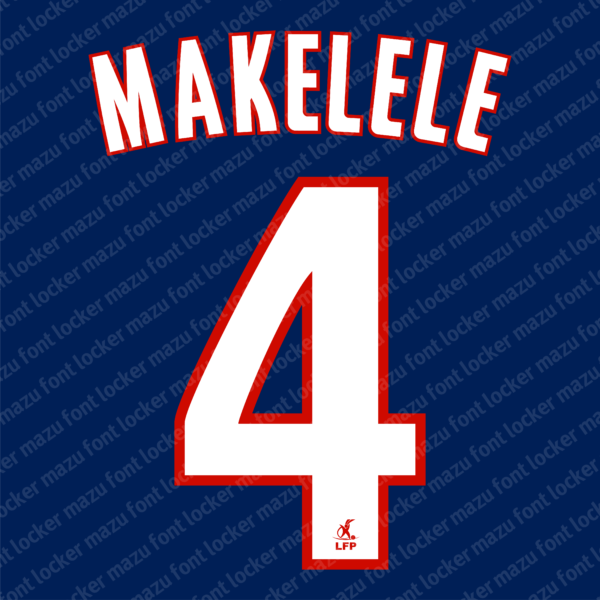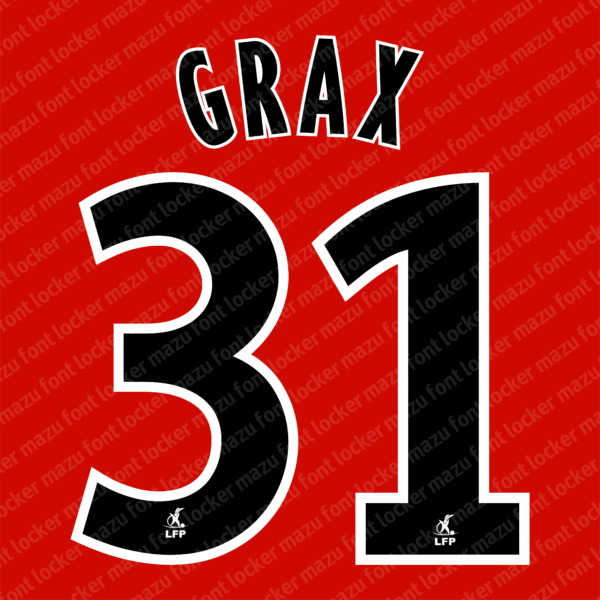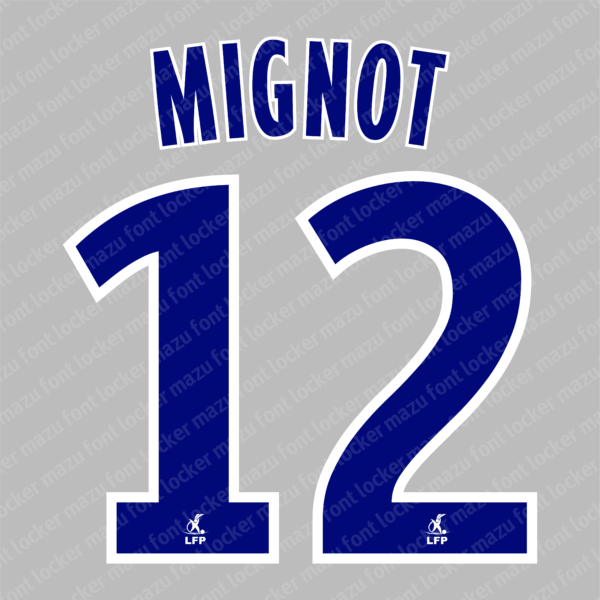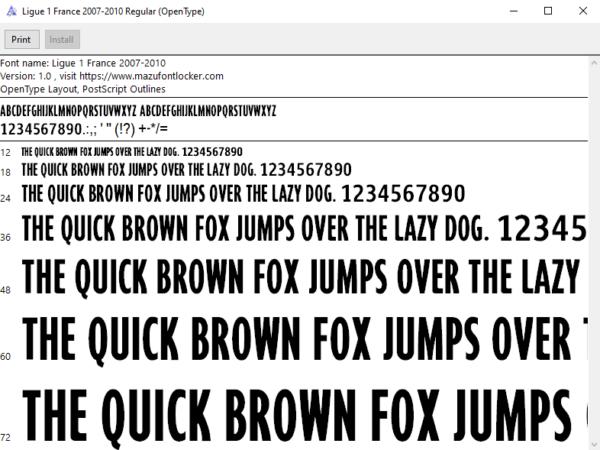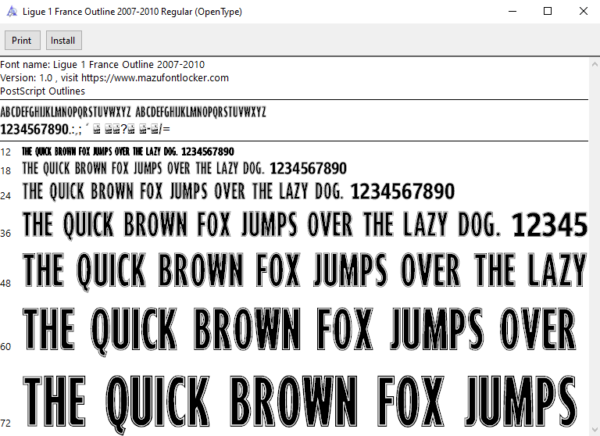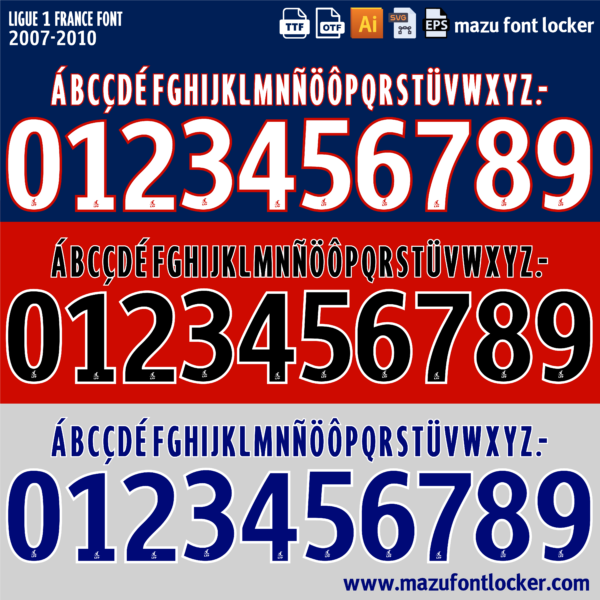
Ligue 1 France 2007-2010 Font Vector – Elegant Golden Era
Ligue 1 France 2007-2010 Font is a high-quality football jersey font vector designed to replicate the official lettering and numbering style used during the 2007-2010 season. This Ligue 1 France 2007-2010 font is perfect for designers, football fans, and creators who want accurate and professional jersey customisation.
Inspired by the official kit of Ligue 1 France, this Ligue 1 France 2007-2010 font delivers a clean and authentic match-day appearance. Every letter and number has been carefully recreated to match the real jersey design, ensuring your projects look realistic and professional.
Ligue 1 France 2007-2010 Font Vector – Authentic Jersey Lettering
Ligue 1 France 2007-2010 font is a high-quality football jersey font vector created to replicate the official lettering and numbering style used during the iconic 2007-2010 Season. Perfect for designers, football fans, and jersey customisation projects, this font set delivers an authentic and professional match-day appearance.
Inspired by the original Ligue 1 France 2007-2010 team kit, every letter and number has been carefully recreated to ensure accurate retro styling for both digital and print projects.
• Authentic Ligue 1 France 2007-2010 jersey lettering style
The authentic lettering style helps recreate the classic look of the Ligue 1 France 2007-2010 kit with professional accuracy.
Unlike generic jersey fonts, this set is designed with a strong focus on authenticity and accuracy. Every detail is based on the original match lettering style used during the 2007-2010 season, helping designers and collectors create realistic football shirt designs.
This Ligue 1 France 2007-2010 font vector set is designed for authentic football jersey customization and works perfectly for retro football projects, collector designs, and professional sportswear artwork.